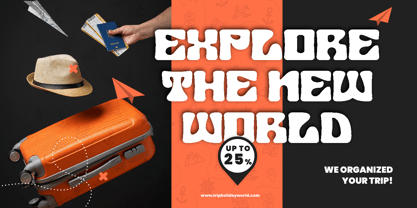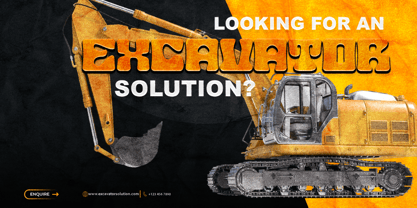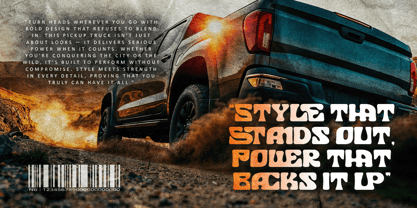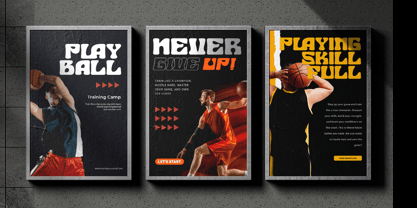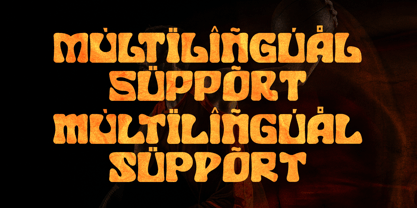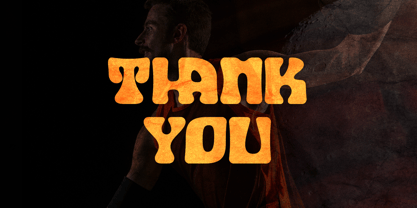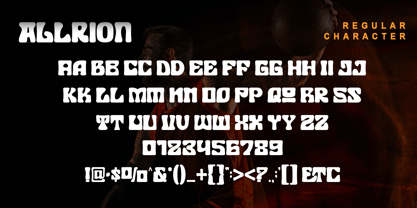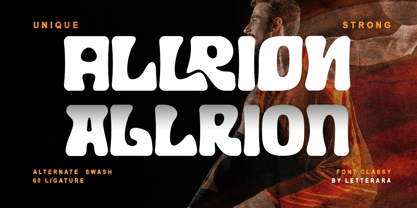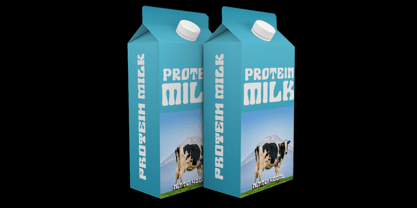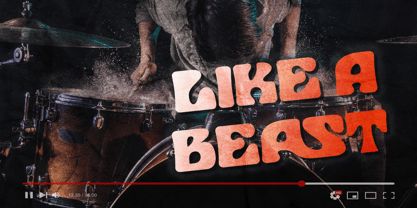
Allrion
by Letterara
The Allrion Font Family was designed by Thomas Aradea and published by Letterara. Allrion contains 2 styles and family package options. More about this family
Introducing Allrion, a bold display font with a wildly unique twist. Designed with thick, curvy letterforms and dynamic ligatures, Allrion brings a playful yet powerful energy to any project. It’s perfect for sports branding, posters, streetwear, music covers, and anything that needs to make a strong visual impact. With 60 ligatures, alternate swashes, and a touch of retro-futuristic flair, Allrion is more than just a font—it’s a statement. Let your typography roar with confidence and creative freedom using the unforgettable style of Allrion.
Designers: Thomas Aradea
Foundry: Letterara